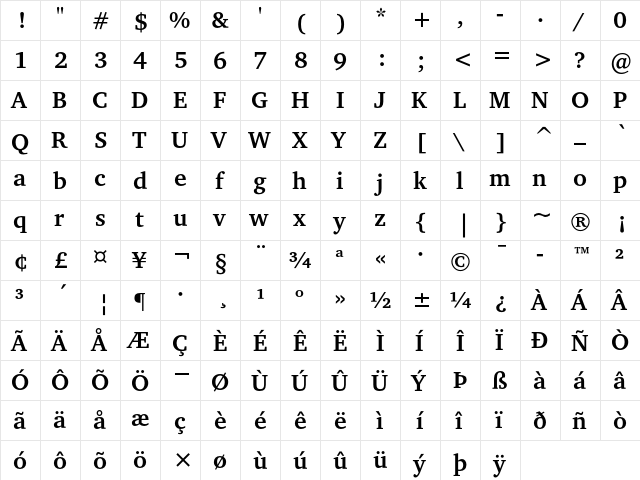
Charter ITC Bold
Design Context for Charter ITC Typeface
Charter ITC offers clean, dependable letterforms without strong stylistic allegiance, making it a practical choice for designers who need flexibility. Its bold stroke weight gives it real presence on the page.
Pro Tip: Pair Charter ITC with a font of contrasting weight or personality to build a more expressive typographic hierarchy.